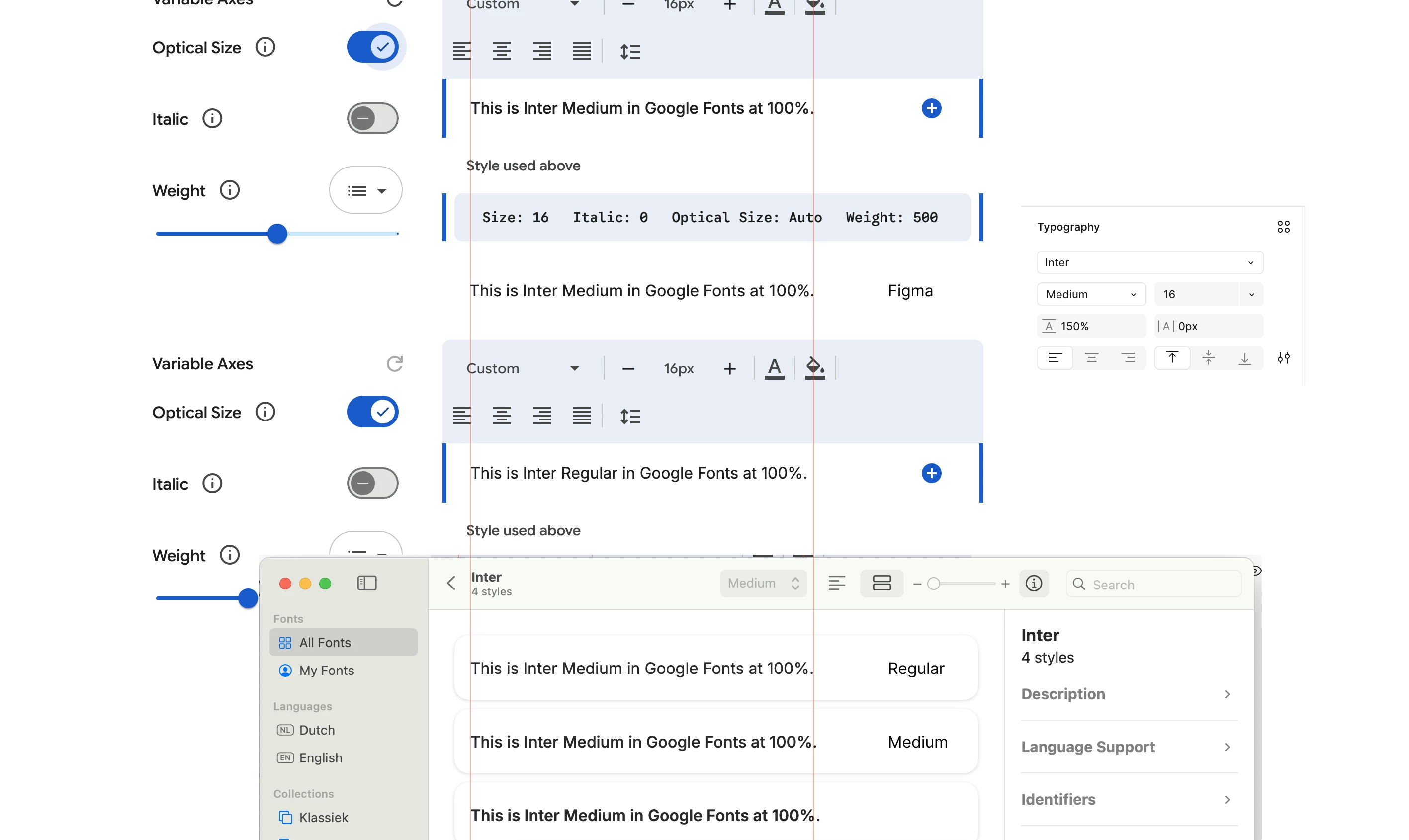
Font rendering issue - Font weights don't match for Inter
I have a major issue with the font Inter not rendering the proper weight in Figma.
The problem
Figma’s Inter Medium displays as Inter Regular. Here’s my case:
I have deinstalled my Inter font locally, and reinstalled the latest Inter version (4.1). Only the weights regular, medium, semibold and bold.
Next, I checked the Google fonts Inter font, and checked regular and medium weights with a custom typed sentence. I duplicated this message in Figma with my ‘new’ Inter font.
Me and my product team clearly define Inter Medium in Figma, to be Inter Regular. Inter Medium in development, google fonts & even font book clearly look much bolder. I figured that Figma must render it the wrong way, since the other sources match. Here’s the screenshot with the comparisons:
nr. 1 is Inter Medium in Google Fonts.
nr. 2 is Inter Medium in Figma.
nr. 3 is Inter Regular in Google Fonts.
nr. 4 is Inter in font book.
Something is clearly wrong.
This is frustrating because we want to be aligned between our design and development teams. Our developers complain the discrepancies and there is currently nothing we can do to fix this in Figma.
Also noticing the same issue… Very frustrating